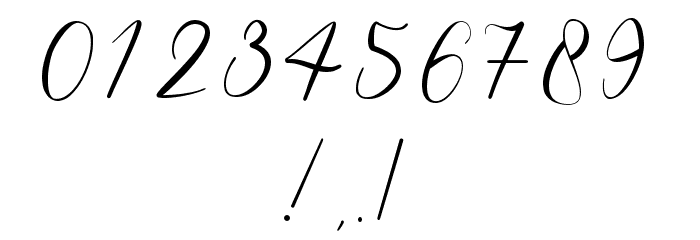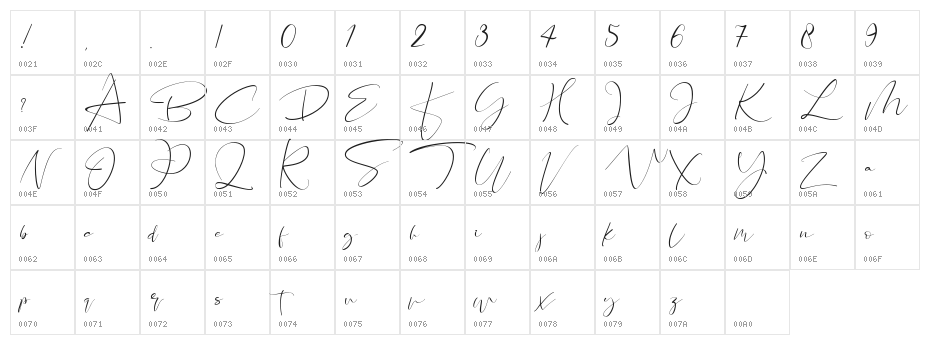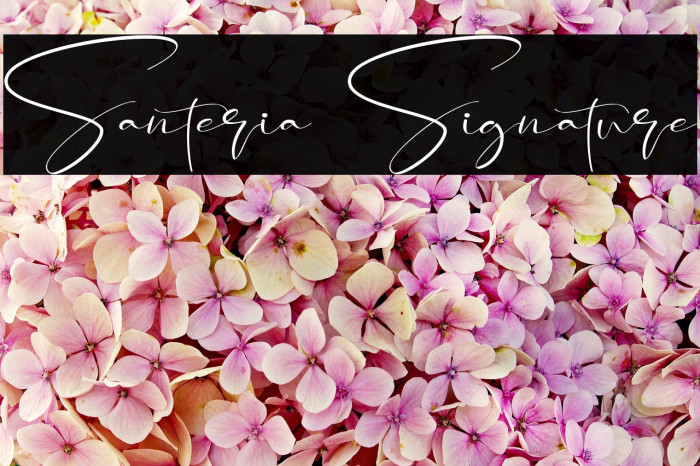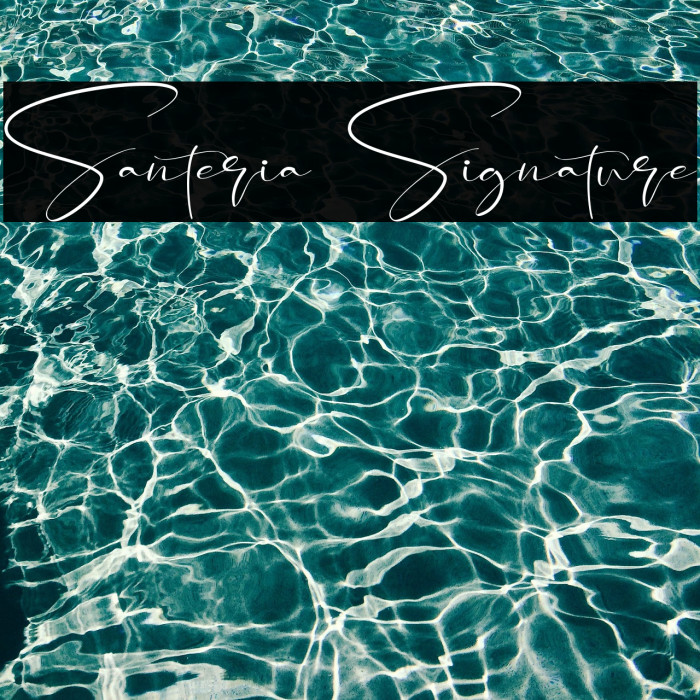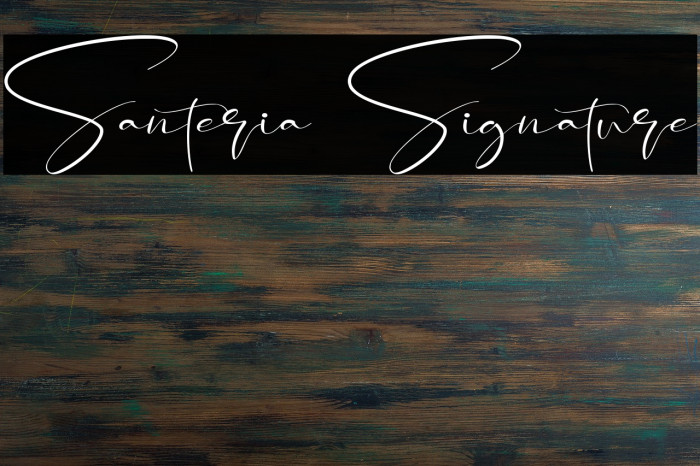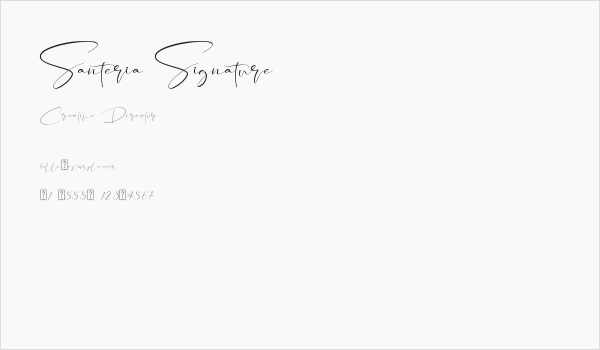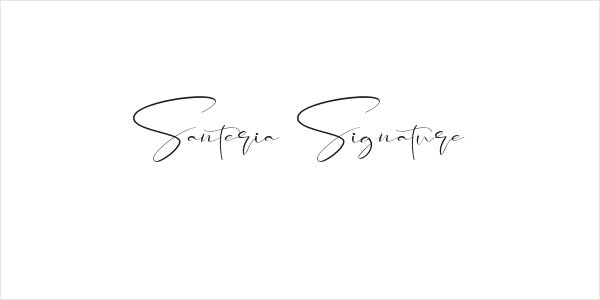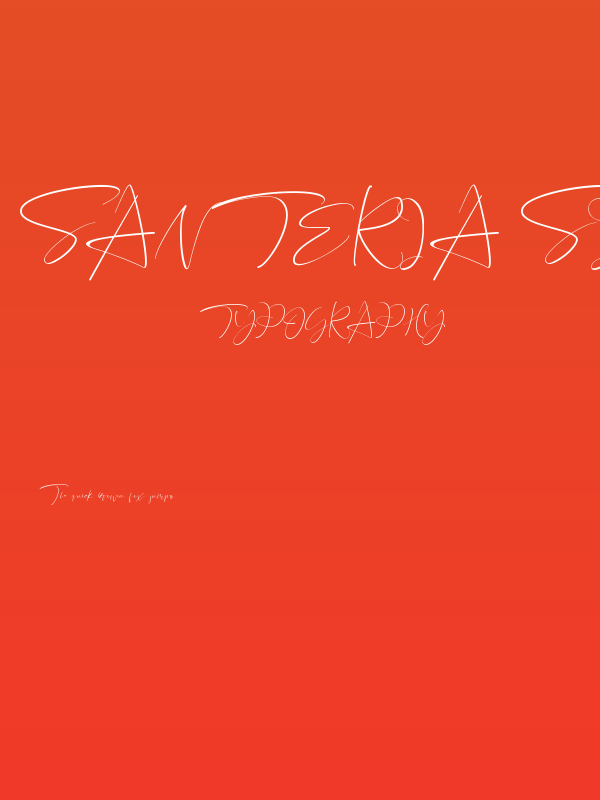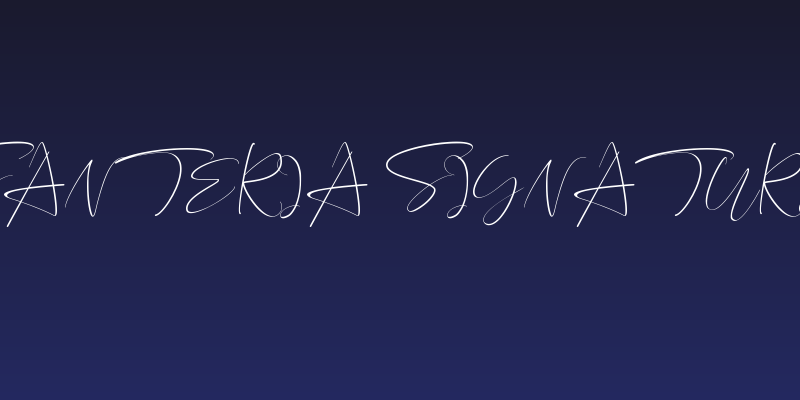
Santeria Signature Font
Santeria Signature Description
This font exudes elegance and sophistication with its fluid, cursive style. The letters are crafted with a delicate touch, featuring graceful loops and swirls that mimic the natural flow of handwriting. The uppercase letters are particularly striking, with their elongated forms and sweeping lines, while the lowercase letters maintain a consistent rhythm and balance. The numerals are equally refined, offering a seamless blend with the alphabetic characters. This font's airy and open design makes it perfect for creating a sense of luxury and refinement. The special characters are thoughtfully integrated, maintaining the overall aesthetic. Its artistic flair is ideal for projects that require a personal, yet polished touch.